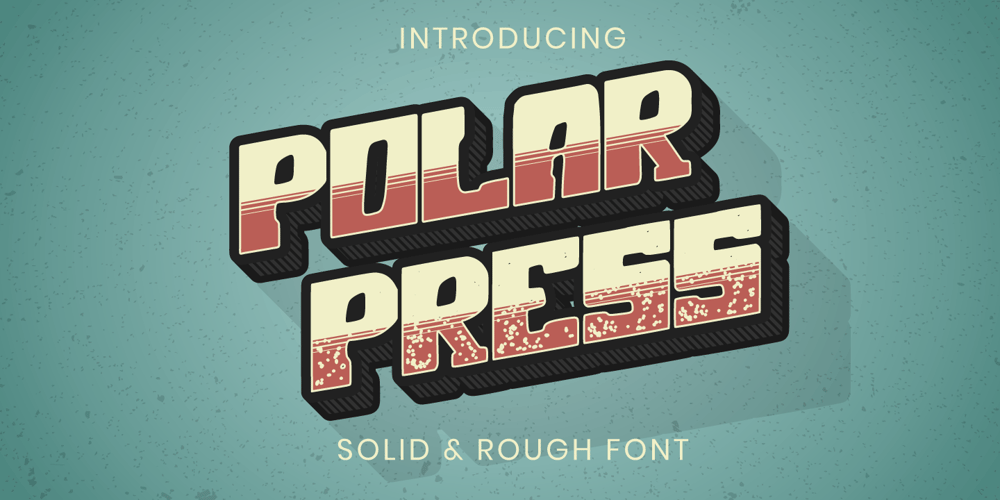
Polar Press
Polar Press font
Polar Press Font Family was designed by Fadli Ramadhan Iskandar and published by Attype Studio. Polar Press contains 2 styles and family package options. Polar Press is a vintage all caps font with 2 styles: clean and rough, and includes 22 ligatures.Polar Press is a strong font and is perfect for branding, logos, invitations, stationery, social media posts, product packaging, merchandise, blog design, game titles, retro style design, Book/Cover Titles and more.